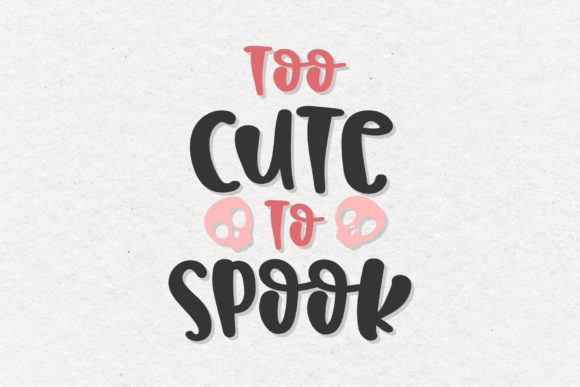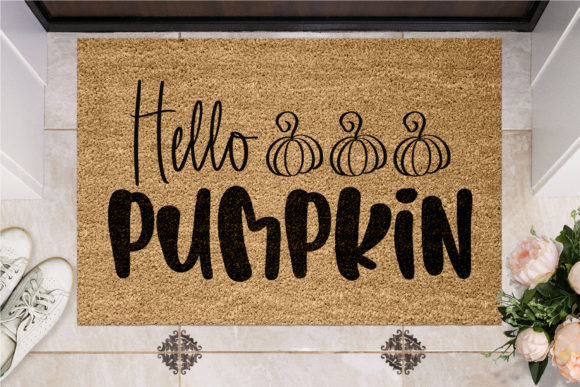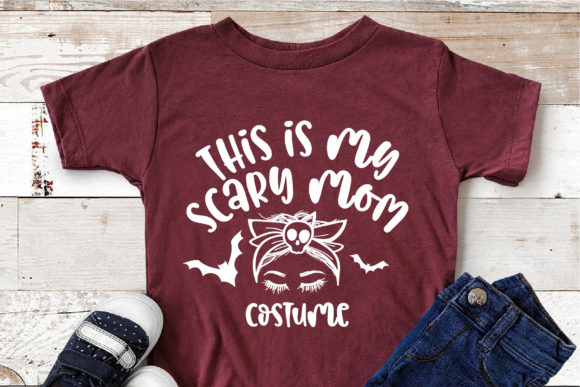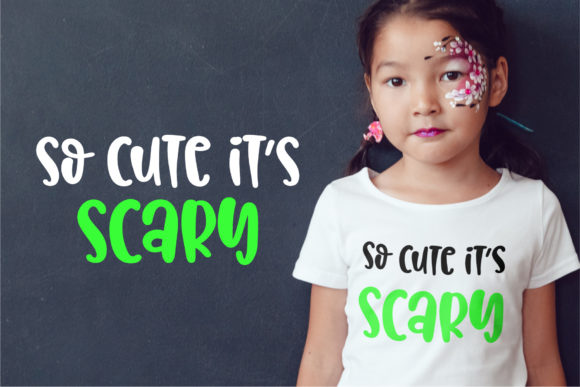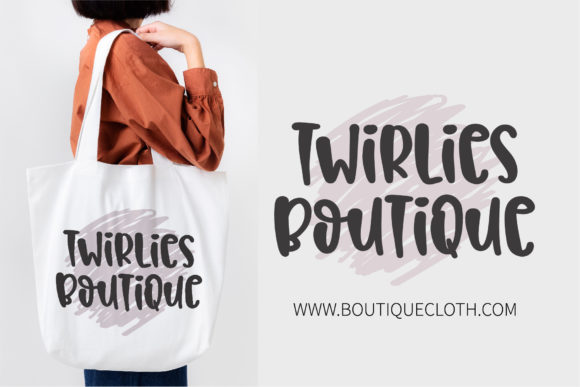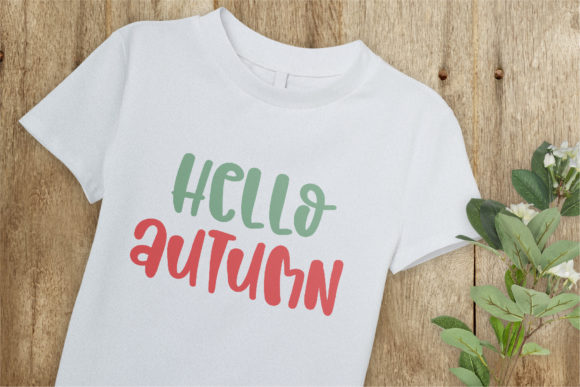
Introduction to Cute Horror Font
Have you ever stared at a blank canvas, trying to spark that creative magic, only to be met with an overwhelming sense of blankness? We’ve all been there, and it’s precisely in these moments that we crave a little something to nudge us in the right direction. Enter the enchanting Cute Horror Font, a chic and relaxed handwritten font that promises to breathe life into even the most mundane projects.
As a valuable addition to your design library, the Cute Horror Font boasts a transparent background, allowing you to seamlessly integrate it into your creative project. With its high-quality design, it’s no wonder this font has become a go-to resource for designers seeking to elevate their work. And the best part? It’s available for free download, making it an accessible design resource for creatives of all levels.
Key Features of Cute Horror Font
- High-quality, bold font with a playful, yet eerie design, perfect for creative projects that require a touch of horror.
- Available in a transparent background option, allowing for seamless integration into various design elements.
- Designed to be used as a design resource for various creative projects, including horror-themed posters, stickers, and digital art.
- Features a unique blend of cute and horror elements, creating a visually striking effect that’s sure to captivate audiences.
Honest Review: Cute Horror Font
I recently stumbled upon the Cute Horror Font, and I must say, it’s been a fun addition to my design library. This font screams creativity and is perfect for a spooky-themed project or a Halloween-themed poster.
Here are some things that work well about the Cute Horror Font:
- High-quality design: The font is well-crafted, and the characters are smooth and clear.
- Transparency options: The font comes with a transparent background option, which is perfect for adding a spooky effect to your design.
- Limited character set: The font only includes a limited character set, which might be a problem if you’re working on a large project.
- Not suitable for all projects: While the Cute Horror Font is perfect for spooky-themed projects, it might not be the best choice for more serious or professional designs.
Overall, I’m impressed with the Cute Horror Font, and I think it’s a great addition to any designer’s library. It’s perfect for a creative project that requires a touch of horror and whimsy.
Cute Horror Font is perfect for Halloween-themed projects, spooky invitations, and horror movie posters. You can also use it to create a unique and creative design for your blog or social media post.
To get the most out of Cute Horror Font, experiment with different font sizes, colors, and combinations. You can also pair it with other design resources, such as creepy graphics and eerie textures, to create a high-quality design.